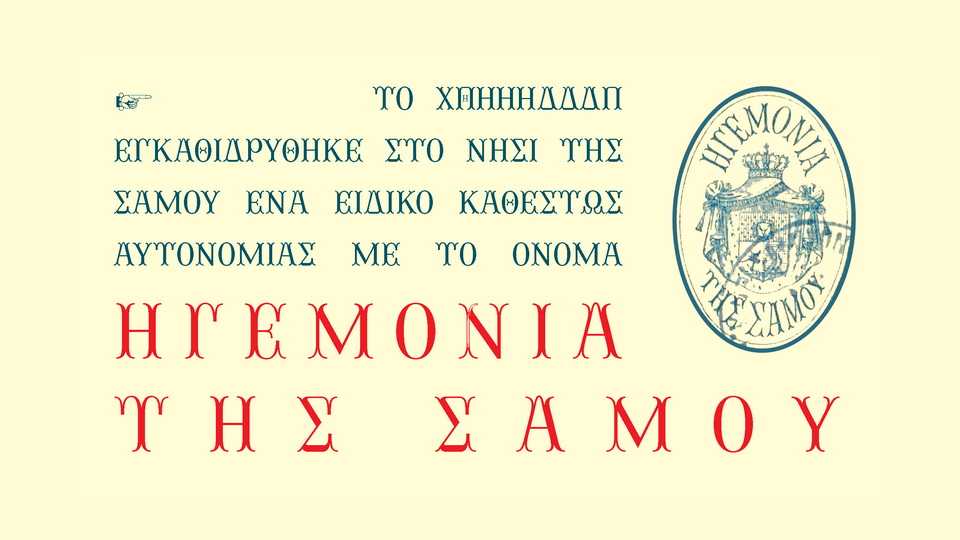
Download Hegemonia font, a caps-only display typeface inspired from lettering found on a 1900 stamp depicting the shield of the Principality of Samos.